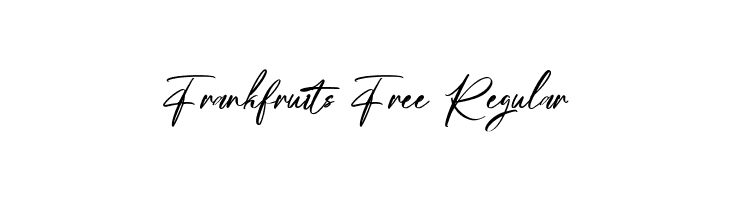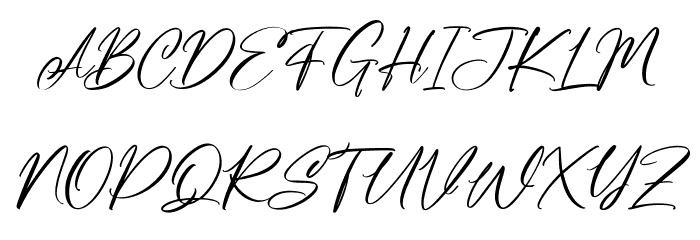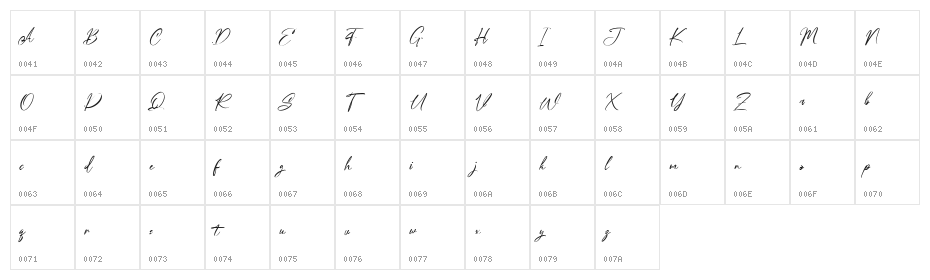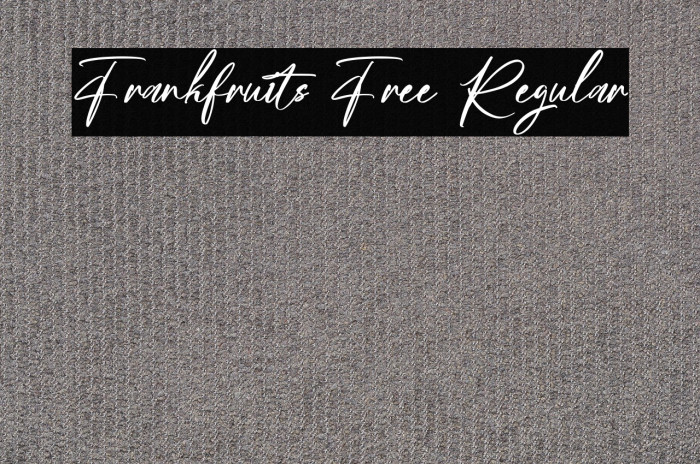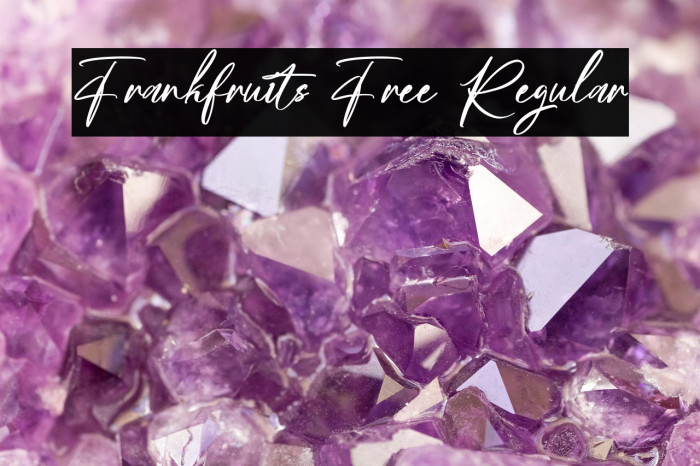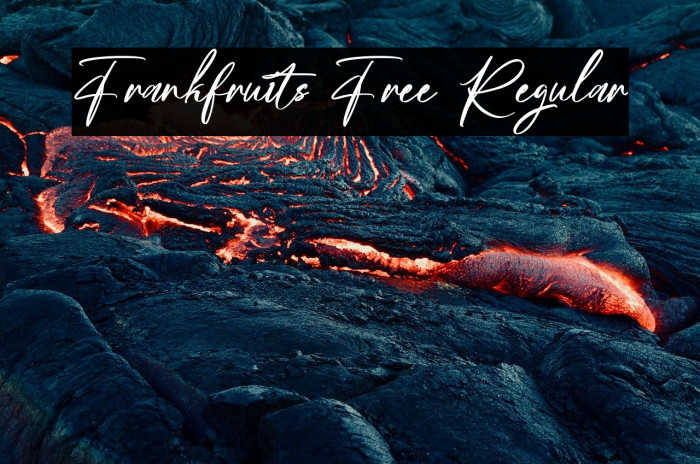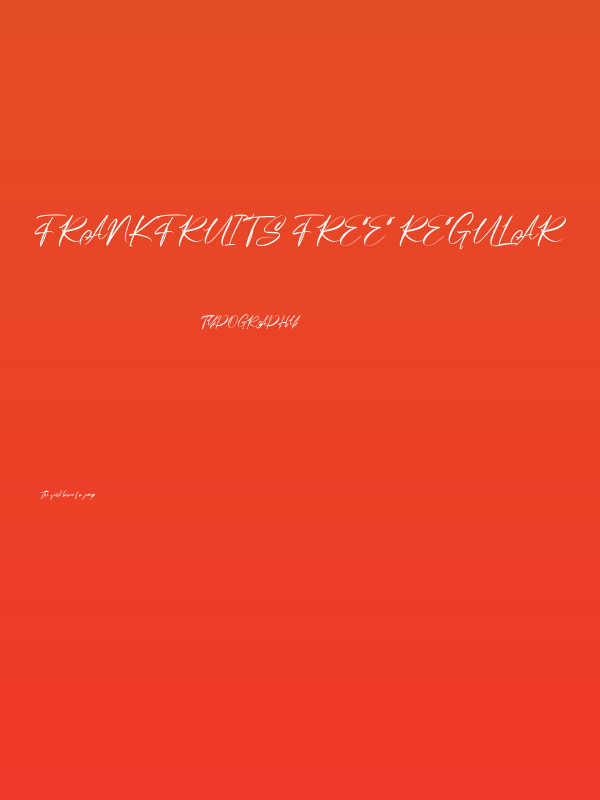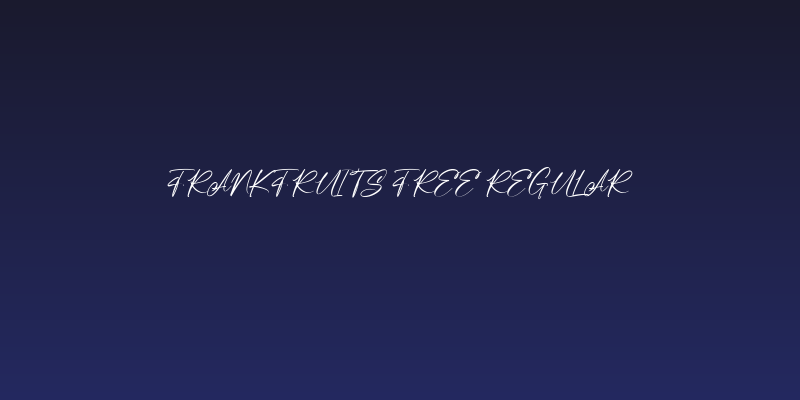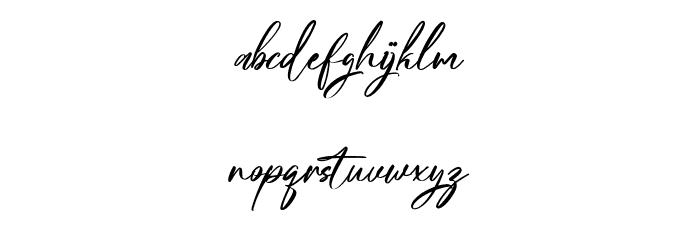
Frankfruits Free Regular Font
Frankfruits Free Regular Description
Elegant, cursive script font with flowing, handwritten style, featuring fine lines and a delicate appearance.
| Overall Style | Elegant, Handwritten, Decorative |
| Use Case | Invitations, greeting cards, logos, branding, decorative headings. |